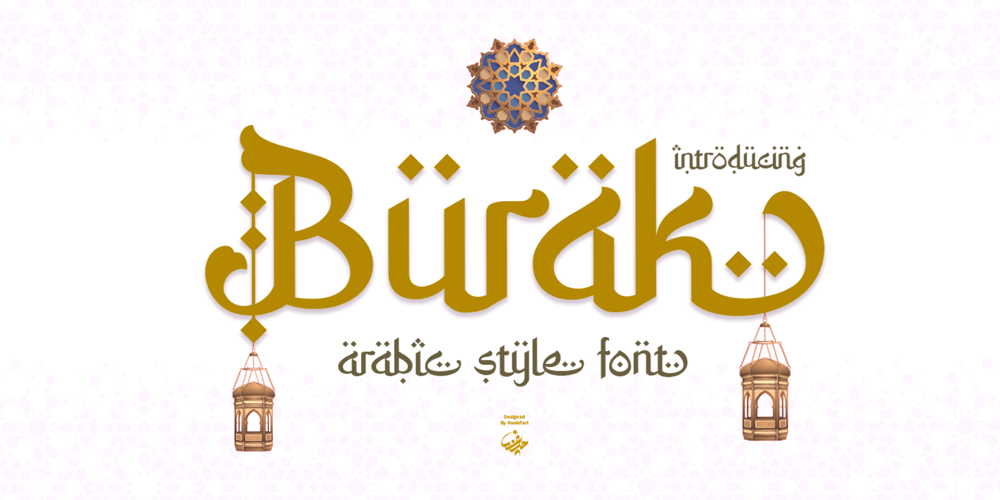
Burak Font Family was designed by Hanif Maulazi and published by Haniefart. Burak contains 1 styles and family package options. Burak is a signature handcrafted typeface featuring a unique blend of modernity and Arabic letter style. Crafted with precision and versatility, its elegant aesthetic makes Burak the perfect choice for a variety of your projects, from invitation cards, business cards, adorning beautiful magazine pages to adding a touch of class to comic books, to creating a statement on t-shirts or attracting attention on banners, and much more. Burak will infuse unique charm and character into each of your projects.